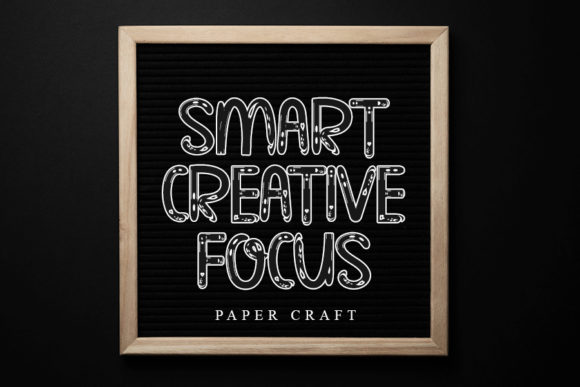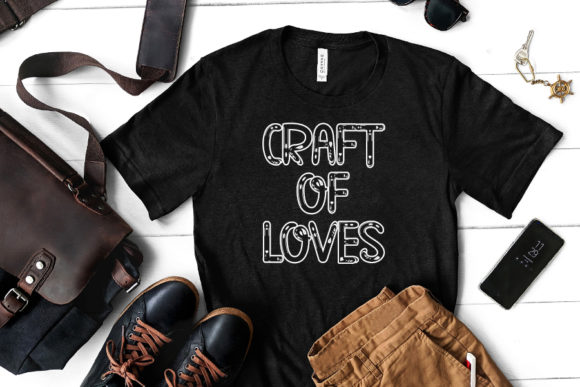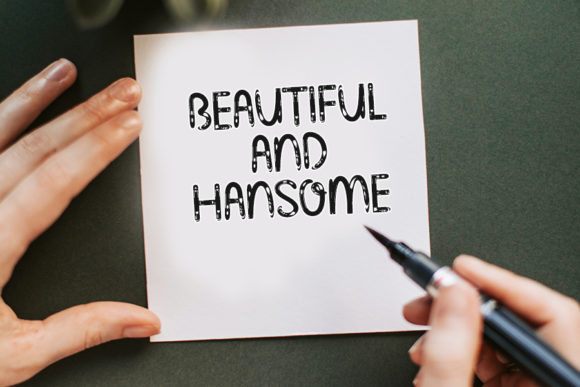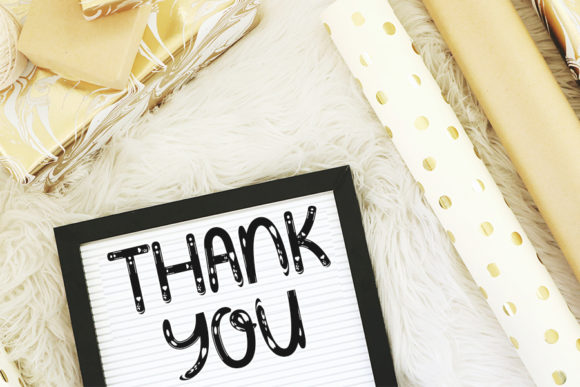
Introducing French Fries Font: The Perfect Addition to Your Design Collection
Are you a designer or crafter looking for a unique and modern font to elevate your creative projects? Look no further than French Fries Font, a stylish display font that’s perfect for a wide range of applications. In this article, we’ll take a closer look at French Fries Font, its features, and how you can use it to take your designs to the next level.
What is French Fries Font?
French Fries Font is a modern styled display font that’s designed to make a statement. With its clean lines, elegant curves, and playful vibe, this font is perfect for creating eye-catching designs that grab attention. Whether you’re working on a branding project, product packaging, invitation, quote, t-shirt, label, poster, or logo, French Fries Font is the perfect choice.
Key Features of French Fries Font
So, what makes French Fries Font so special? Here are some of its key features:
- Modern and stylish design: French Fries Font boasts a sleek and contemporary design that’s sure to impress.
- Versatile: This font is perfect for a wide range of applications, from branding and packaging to invitations and posters.
- Elegant and playful: French Fries Font strikes the perfect balance between elegance and playfulness, making it perfect for designs that require a touch of sophistication and whimsy.
- Easy to read: Despite its stylish design, French Fries Font is easy to read, making it perfect for body text and headlines.
How to Use French Fries Font
Now that we’ve covered the features of French Fries Font, let’s talk about how you can use it in your designs. Here are some ideas to get you started:
- Branding and logos: Use French Fries Font to create a unique and memorable logo that sets your brand apart.
- Product packaging: Add a touch of elegance and sophistication to your product packaging with French Fries Font.
- Invitations and events: Create beautiful invitations and event materials with French Fries Font, perfect for weddings, parties, and more.
- T-shirts and apparel: Use French Fries Font to create eye-catching t-shirts and apparel that make a statement.
- Posters and flyers: Create stunning posters and flyers with French Fries Font, perfect for advertising and promotional materials.
In conclusion, French Fries Font is a versatile and stylish display font that’s perfect for designers and crafters looking to elevate their creative projects. With its modern design, elegant curves, and playful vibe, this font is sure to make a statement. Whether you’re working on branding, packaging, invitations, or posters, French Fries Font is the perfect choice. So why wait? Download French Fries Font today and take your designs to the next level!